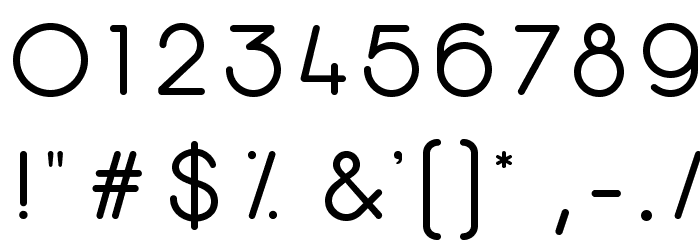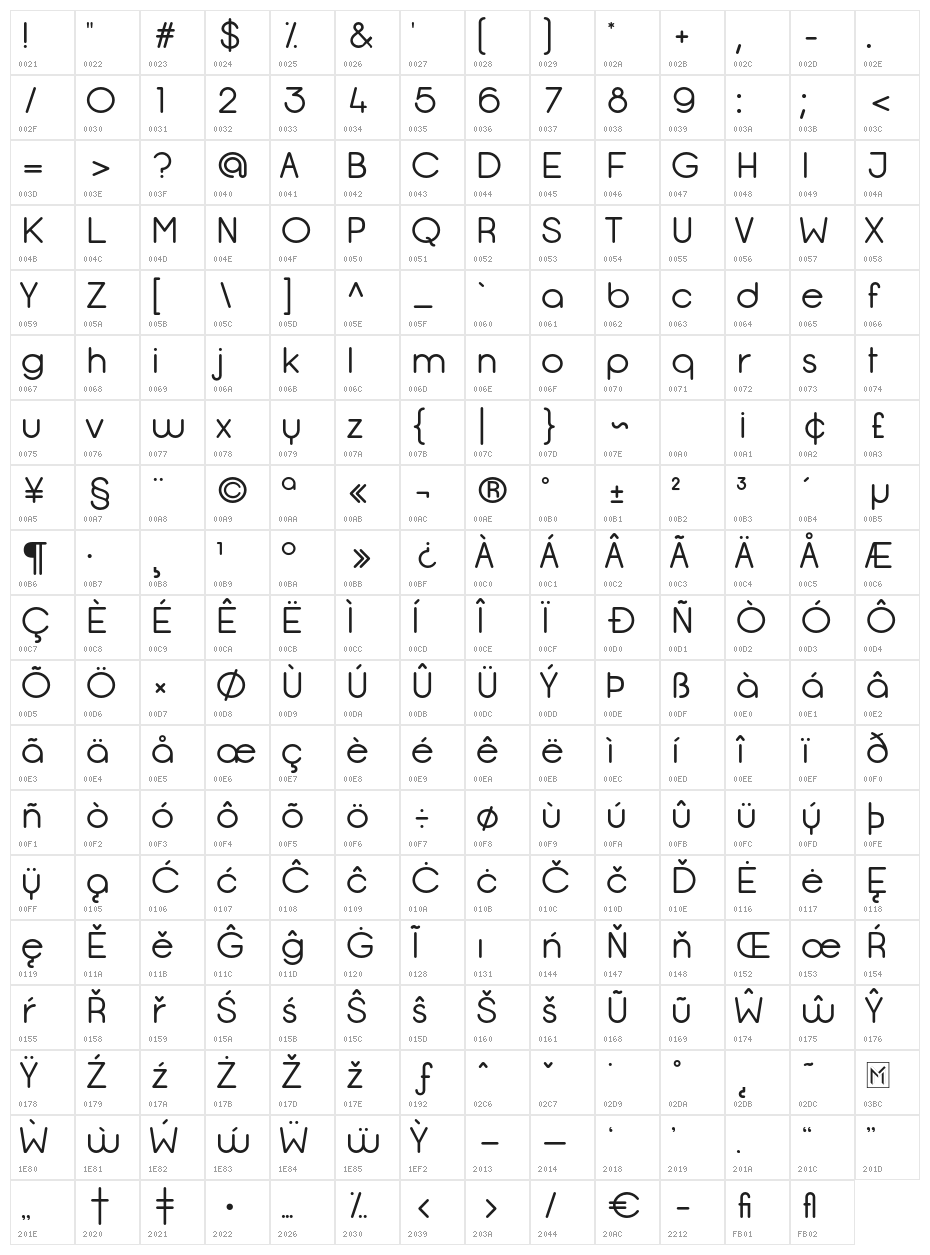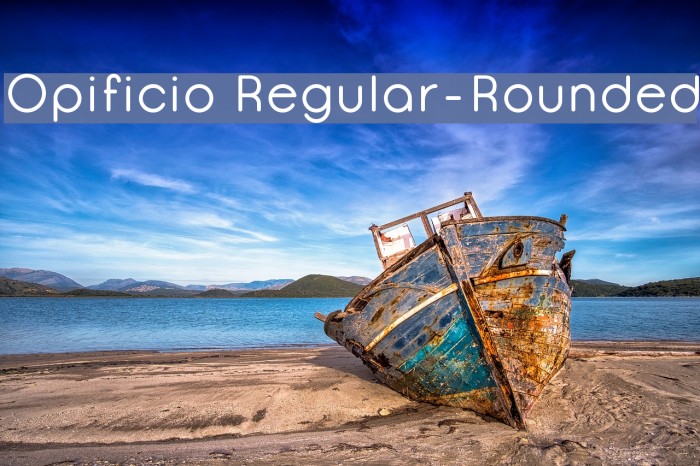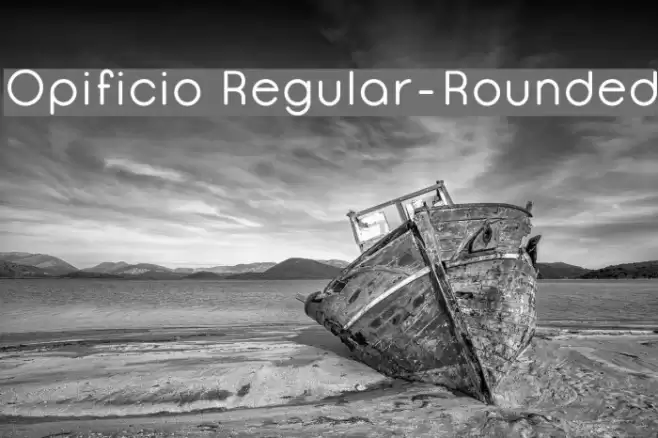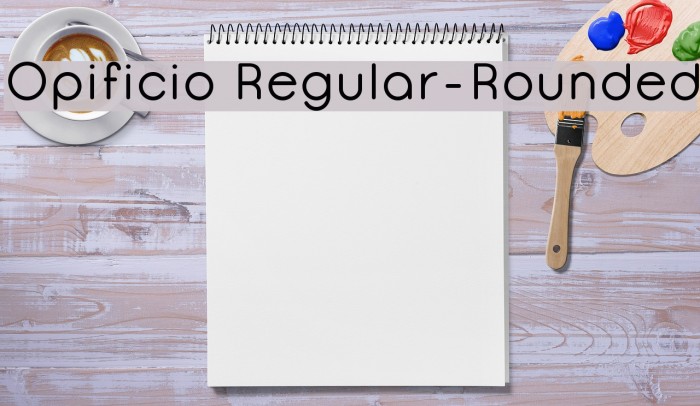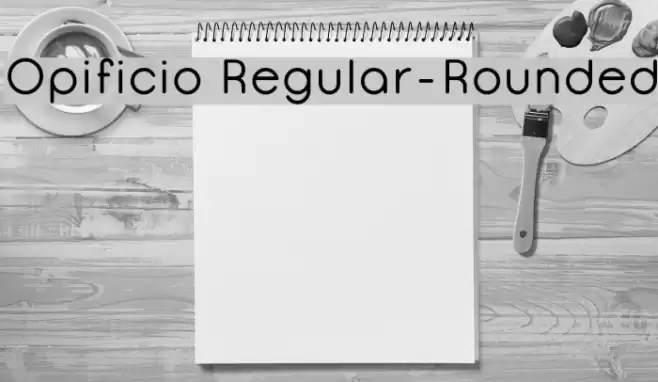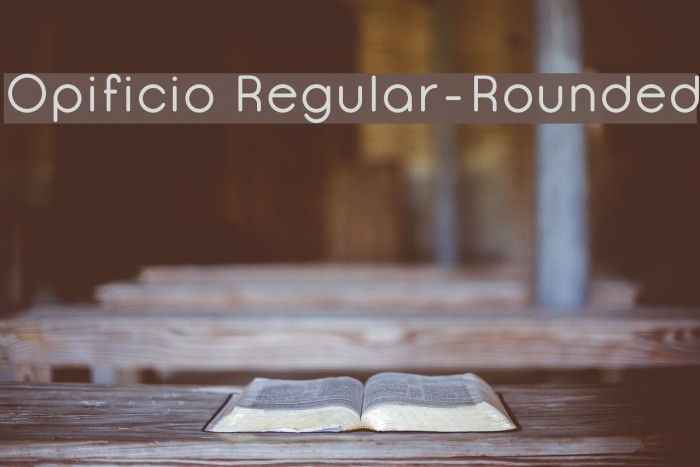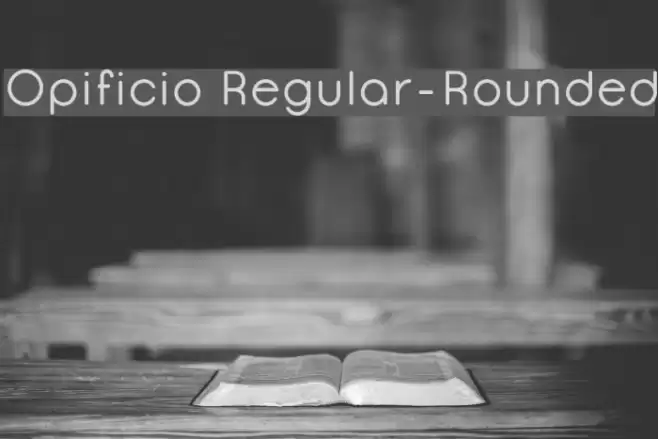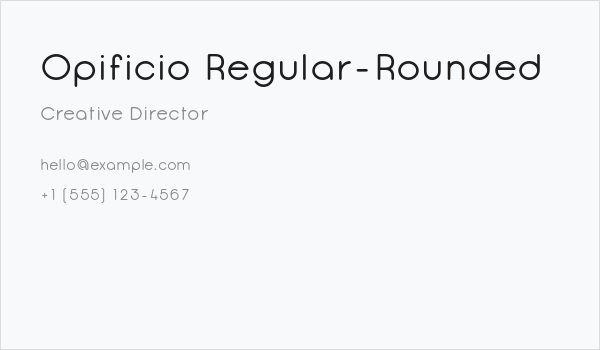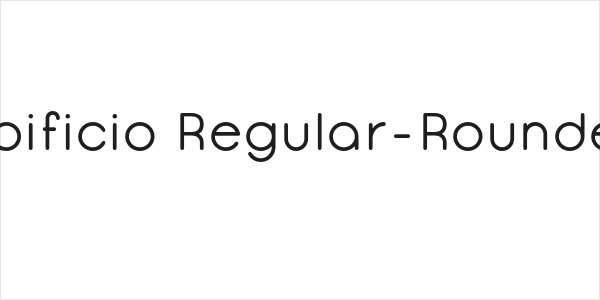
Opificio Regular-Rounded Font
Opificio Regular-Rounded Description
This font features a clean and modern design with rounded edges that give it a friendly and approachable appearance. The characters are evenly spaced, contributing to its readability. The uppercase and lowercase letters are well-proportioned, maintaining a consistent style throughout. The numerals are clear and distinct, making them easily distinguishable. Special characters are included, adding versatility to its use. The overall look is sleek and contemporary, suitable for a variety of design needs.
| Proposed Projects | Ideal for branding, web design, user interfaces, and print materials where a modern and friendly aesthetic is desired. |